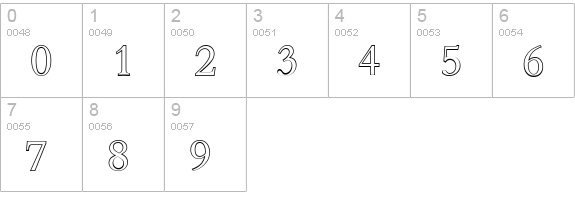
BernsteinOutline-Light-Regular Font Details
BernsteinOutline-Light-Regular is a refined, elegant variant in the BernsteinOutline typeface family \xE2\x80\x94 well suited to elegant body text, refined sub-headings, and luxury branding.
BernsteinOutline-Light-Regular font is a modern and elegant typeface that exudes sophistication and charm. With its sleek lines and minimalistic design, this font is perfect for adding a touch of class to any project. The light weight of the font gives it a delicate and airy feel, making it ideal for use in a variety of design applications. This versatile font is free to download at FontsMarket.com, making it easily accessible to anyone looking to add a touch of elegance to their projects. Whether you're designing a website, creating a logo, or working on a print project, BernsteinOutline-Light-Regular font is sure to elevate your design and make a lasting impression. Its clean and understated look will help your content stand out while maintaining a sense of sophistication. Download this font today and take your design to the next level!